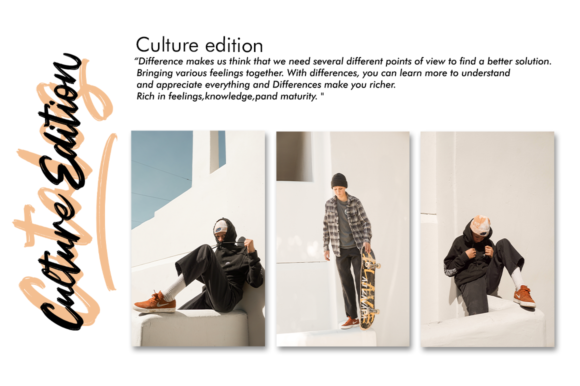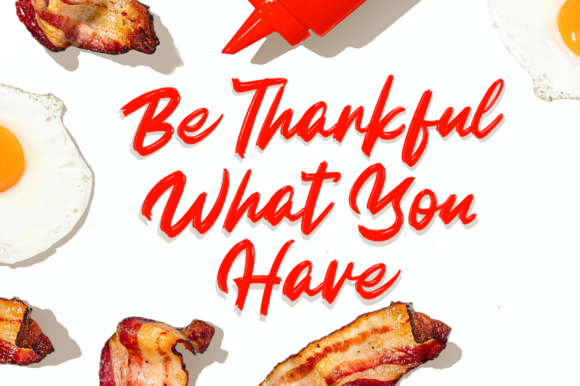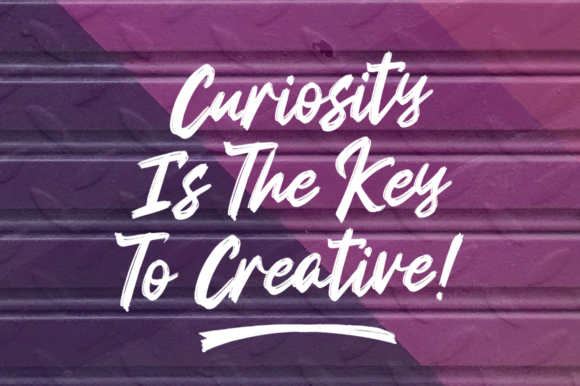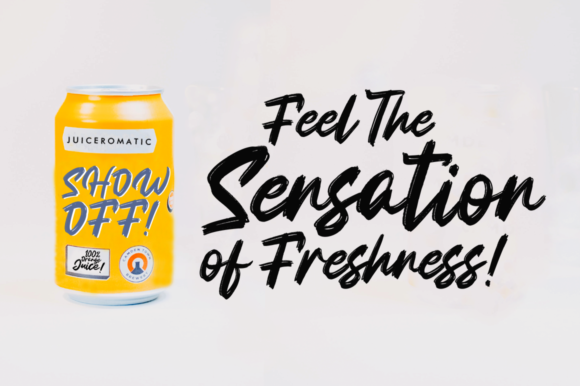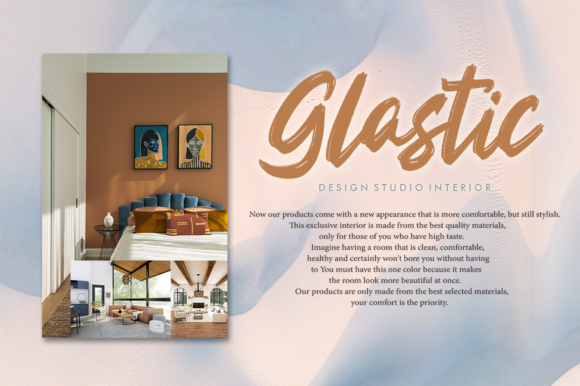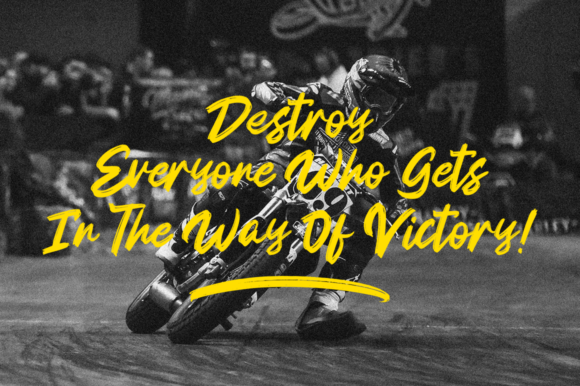
Compast Font – Free Download
Introduction to Compast Font
Compast is a cursive and assertive handwritten font, crafted to give your headlines and logotype projects a stylish touch.
This font reads as strong, confident, and dynamic and can add tons of nostalgic character to your designs .
Key Features of Compast Font